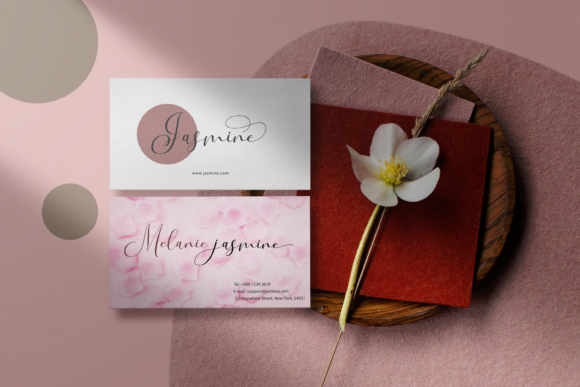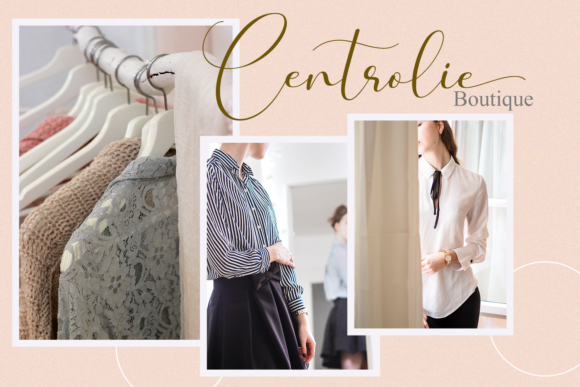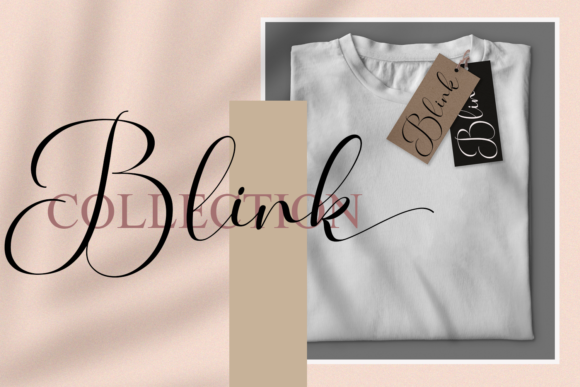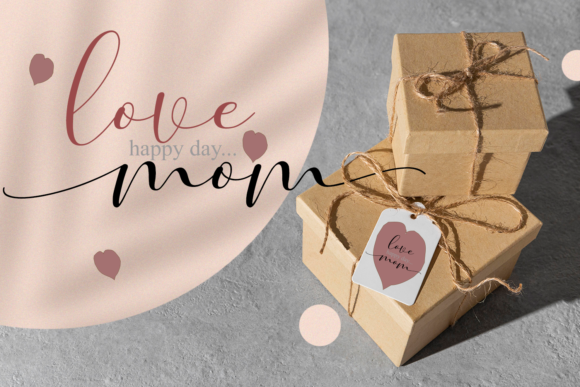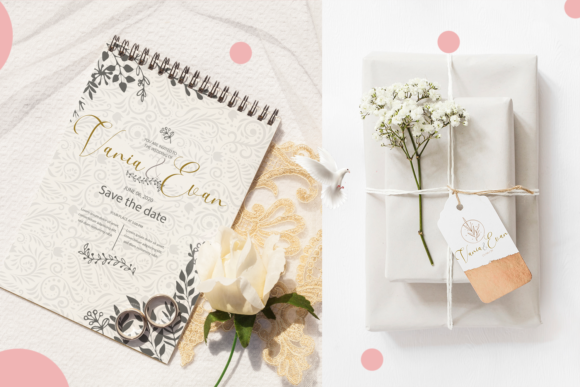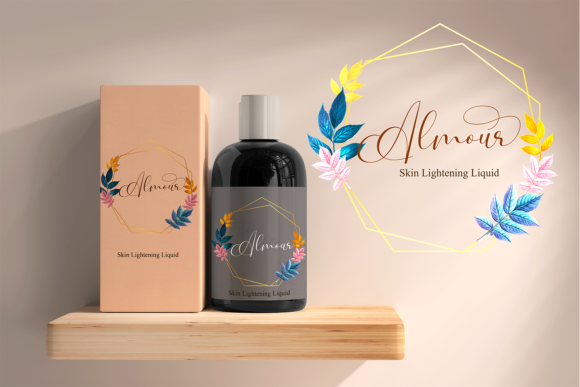
The Designer’s Delight: A Deep Dive into the Anthea Font
I’ll never forget the time I was working on a project for a client who wanted a whimsical, handcrafted feel. I spent hours scouring the internet for the perfect font, but nothing seemed quite right. That was until I stumbled upon the Anthea font. This lovely, lightweight handwritten font has been a game-changer for my designs, and I’m excited to share its beauty with you.
An Honest Review of Anthea Font
- ✨ Unique and beautiful touch on every letter
- ✅ Lightweight, making it perfect for digital and print designs
- 💫 PUA encoded for easy access to glyphs and swashes
- 🎨 Highly versatile and pairs well with a variety of design styles
While Anthea is an amazing font, there are a few things to keep in mind:
- ⚠️ Some users may find the font a bit too delicate for certain design applications
- 🤔 Limited availability of language support, so be sure to check compatibility
The Story Behind Anthea Font
Anthea was designed with the intention of creating a beautiful, handwritten font that’s both elegant and approachable. The designer wanted to craft a font that would add a touch of whimsy to any design, while still maintaining a level of sophistication. With its unique and beautiful touch on every letter, Anthea is sure to become a favorite among designers.
A: PUA (Private Use Area) encoding allows for easy access to glyphs and swashes, making it simple to customize your designs.
Q: Is Anthea a versatile font?
A: Absolutely! Anthea pairs well with a variety of design styles and can be used for both digital and print designs.